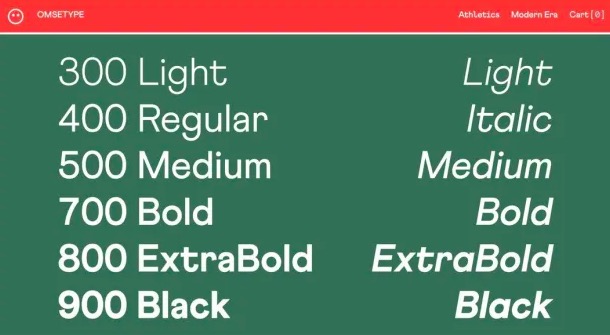
Athletics font is a monolinear and versatile sans serif typeface that aims to push your design limits. Moreover, asymmetric arcs, a low aperture, along with extended strokes come together in a characterful yet functional Sans serif font.
Athletics Sans Serif Font Family